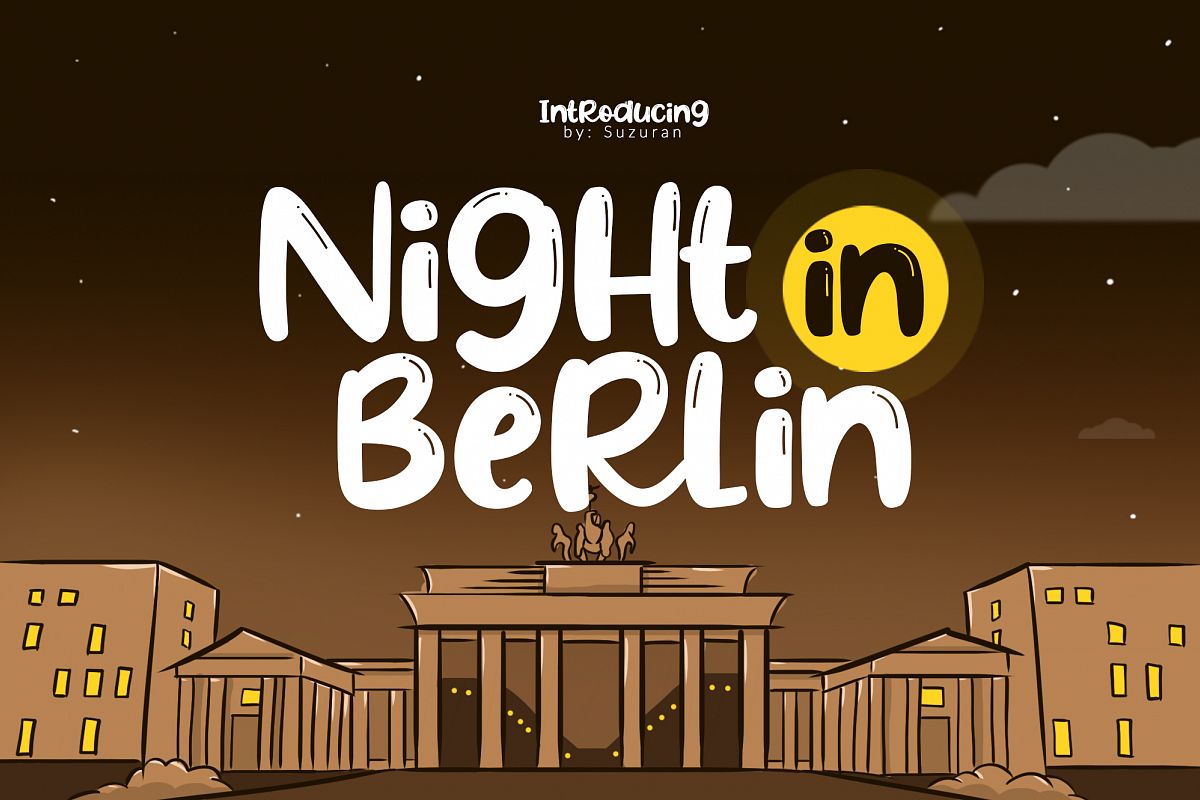
Night in Berlin
Night in Berlin, 2 font with cheerful theme for your fun project. Night in Berlin Display font has 2 different styles, regular & slant. Night in Berlin font suitable for logo, branding, greeting card, branding, poster and any design that you create.